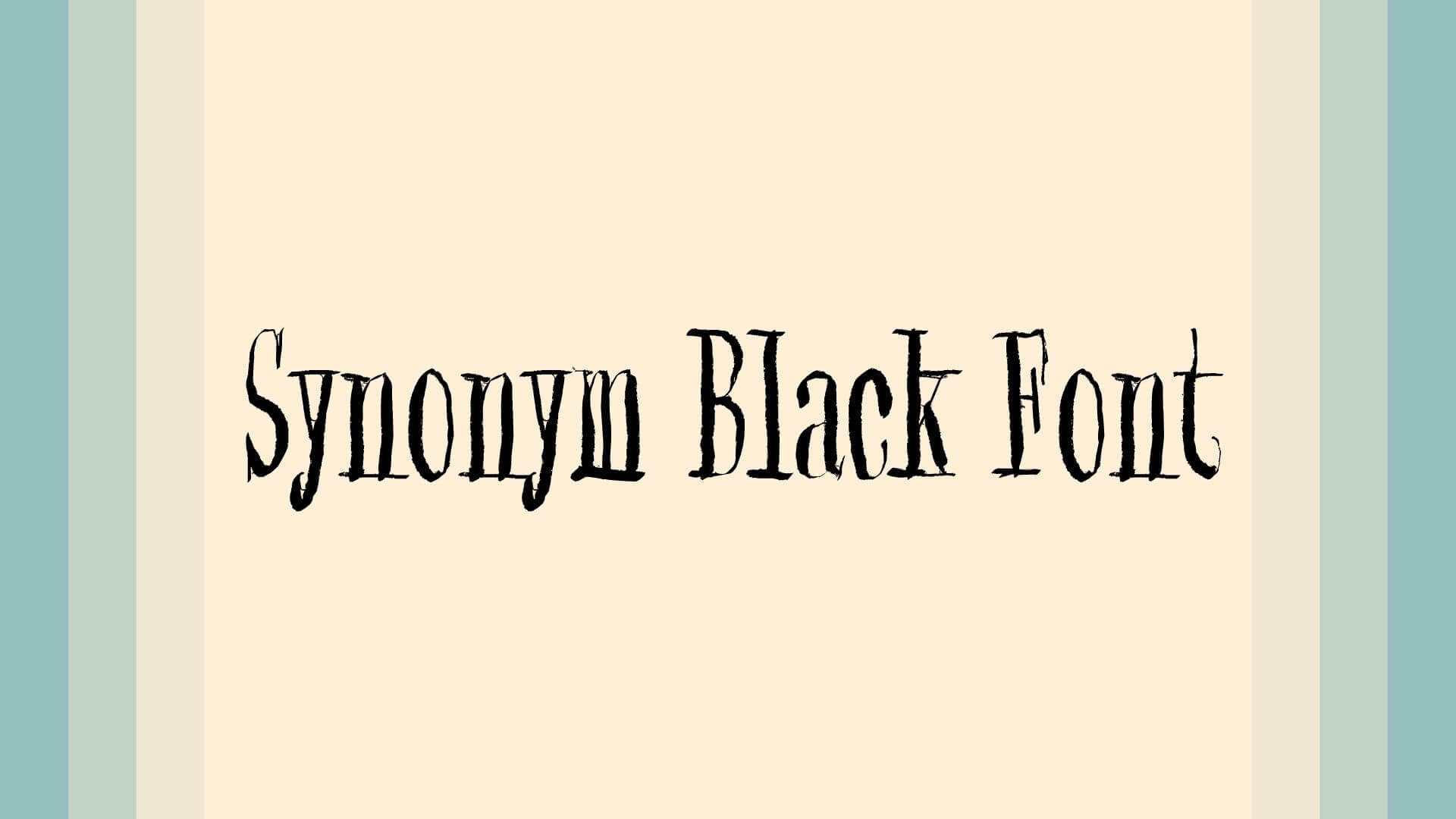
Blank Synonym Font Family is a Fancy typeface family. This condensed typeface has decorous and excellent features, which made different it from other fancy typefaces. After its release, it has gained massive popularity because of its classic textures. Junkohanhero designed this glorious typeface.
Synonym Black Font